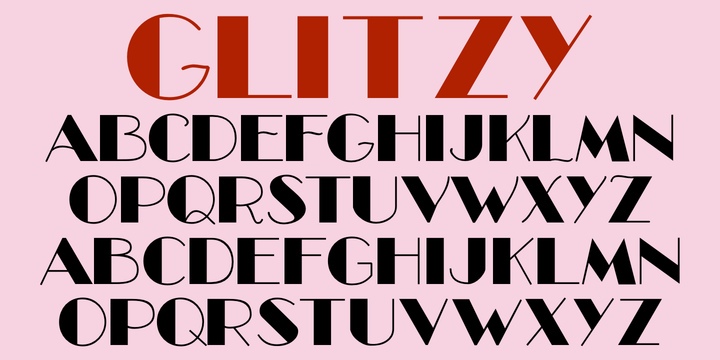
Glitzy Font
Glitzy Font is perfect for entertainment industry branding, nightclub event promotions, celebrity magazine layouts, fashion show marketing, red carpet event materials, glamorous party invitations, luxury entertainment venues, and high-profile social media campaigns where sparkle and showbiz glamour are essential.
What makes Glitzy Font so exciting is its dazzling ability to capture the intoxicating allure of Hollywood glamour through shimmering letterforms that embody the glittering excitement of celebrity culture while maintaining excellent readability under stage lights. The sparkling character design reflects the magnetic charisma and star quality that defines entertainment industry excellence.
The Glitzy Font family includes light, regular, bold, and extra bold weights, with glittering variants and showbiz-inspired ornamental elements that provide comprehensive tools for creating captivating entertainment branding and glamorous event design systems.
This spectacular typeface represents the pinnacle of entertainment typography, combining Hollywood tradition with contemporary celebrity marketing requirements. The Glitzy Font Free Download gives entertainment brands access to typography that communicates star power and glamorous sophistication.
The font's sparkling character details and dramatic proportions create immediate associations with celebrity culture and high-profile entertainment events. Each letterform has been designed to capture attention and convey the excitement that defines successful entertainment experiences and star-studded occasions.
Glitzy Font excels in creating show-stopping brand identities that command attention and generate excitement among entertainment-seeking audiences. The typeface's glamorous personality makes it ideal for nightlife venues, entertainment companies, and celebrity brands targeting audiences seeking luxury entertainment experiences.
From awards ceremonies to exclusive nightclub events, this font brings star quality that appeals to audiences craving glamorous entertainment and celebrity experiences. The versatile design maintains its glittering character across both traditional entertainment materials and modern digital celebrity platforms.